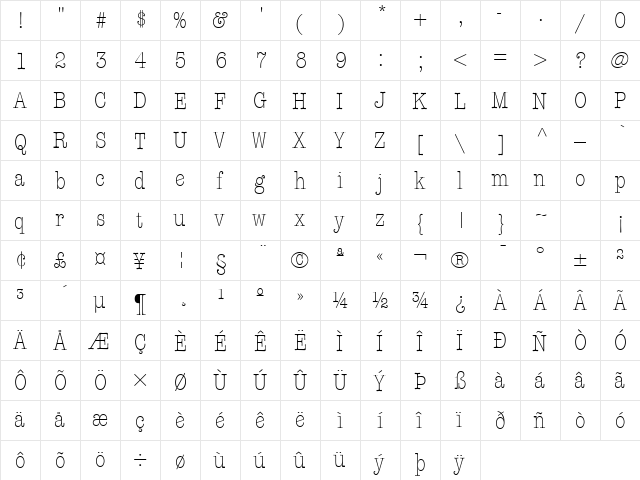
Keyboard Light CondensedAlt SSi Light Condensed Alternate Font Preview
| Style | Light Condensed Alternate |
Design Context for Keyboard Light CondensedAlt SSi Typeface
Keyboard Light CondensedAlt SSi is a composed and adaptable typeface that performs quietly and consistently across a wide range of design contexts. Its slender proportions lend an understated elegance to any composition. The condensed width makes it efficient for tight spaces without sacrificing legibility.